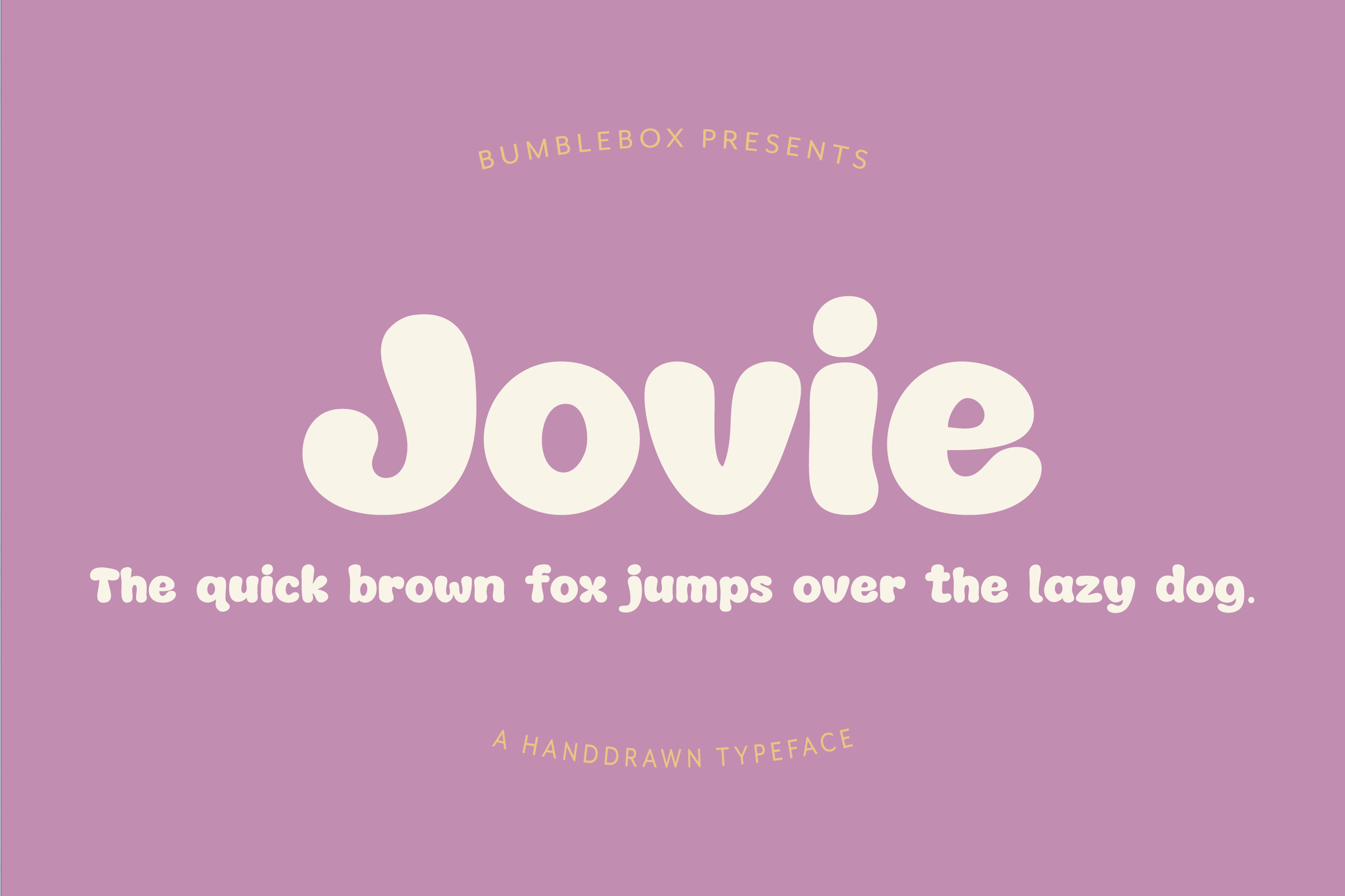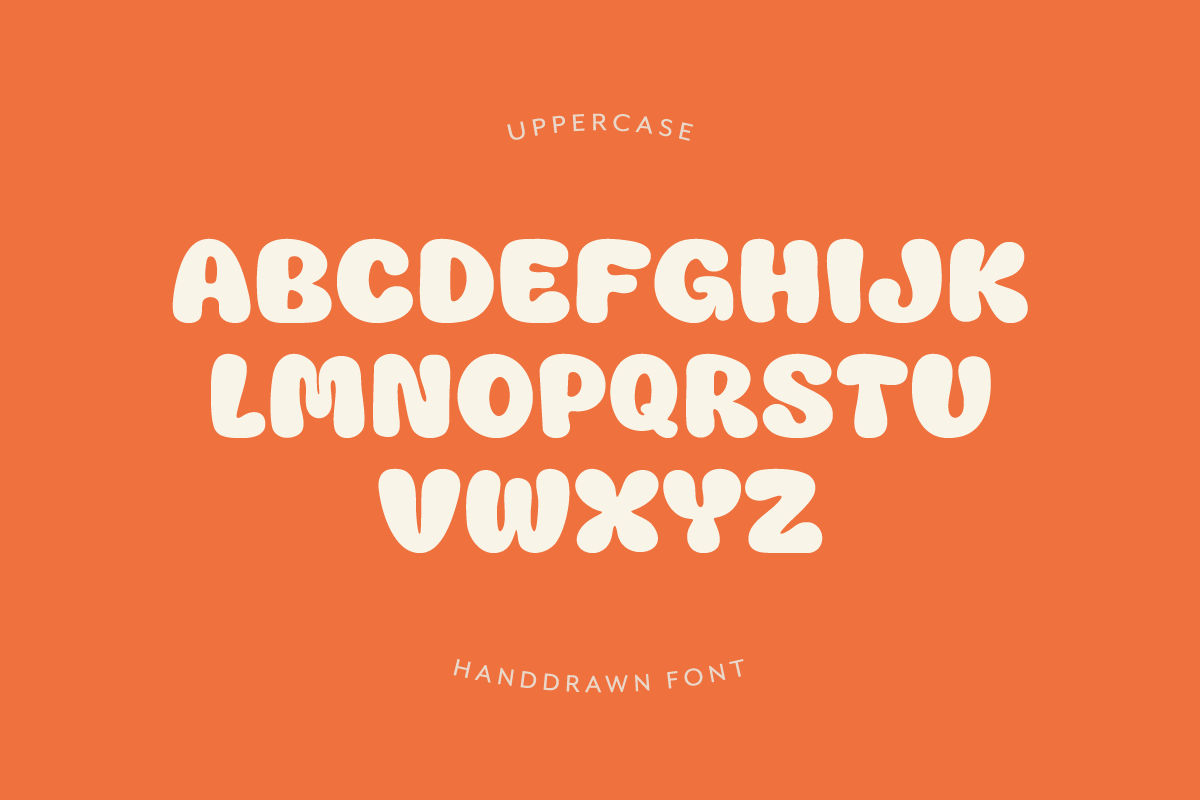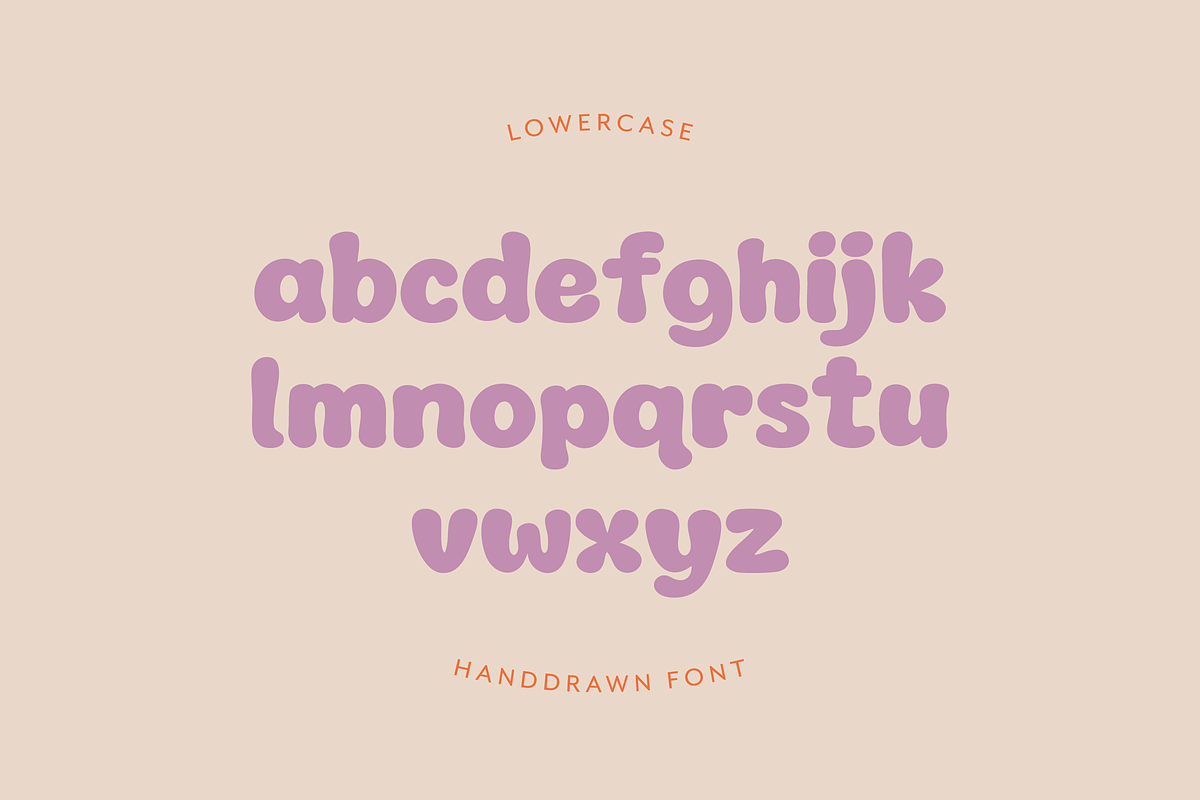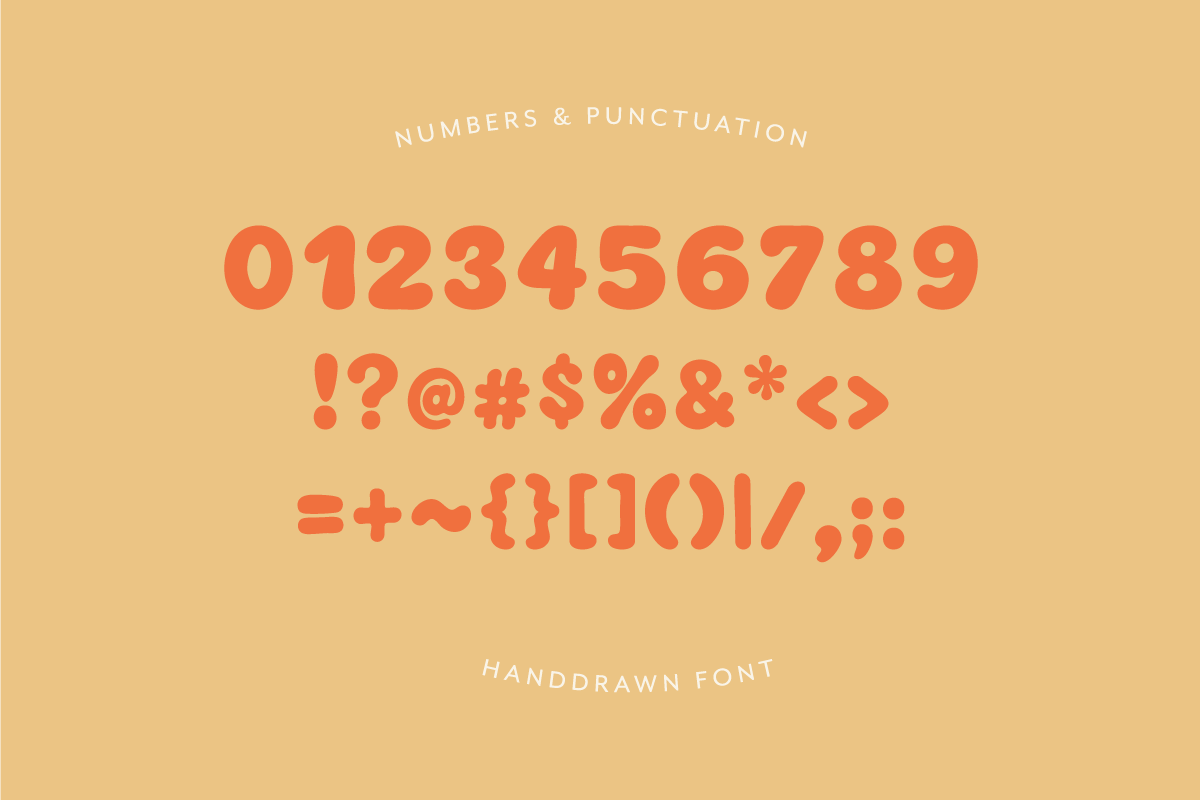
Jovie – Handwritten Display Font
Jovie is a playful hand-drawn display font with soft curves and chunky strokes that give it a friendly, handmade feel.
Designed to stand out while remaining easy to read, Jovie works beautifully for projects that need a warm and cheerful personality.
children’s designs
greeting cards
planners and stickers
packaging and branding
social media graphics
Cricut and craft projects
Jovie includes uppercase and lowercase letters, numbers, and punctuation.
Its rounded shapes and natural rhythm make it ideal for bold titles, playful logos, and creative designs that need a touch of personality.